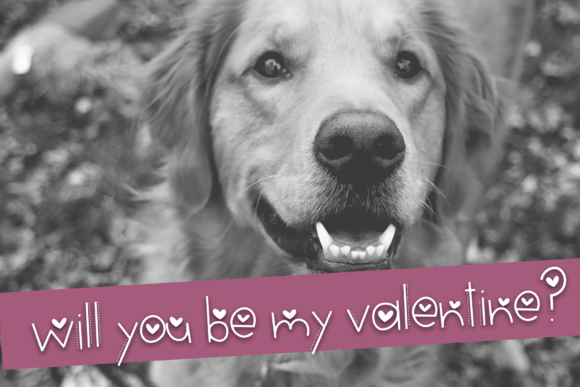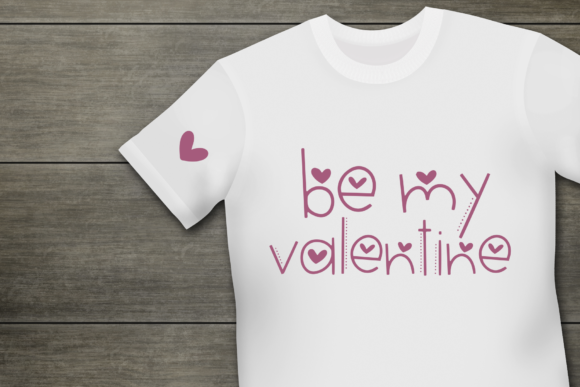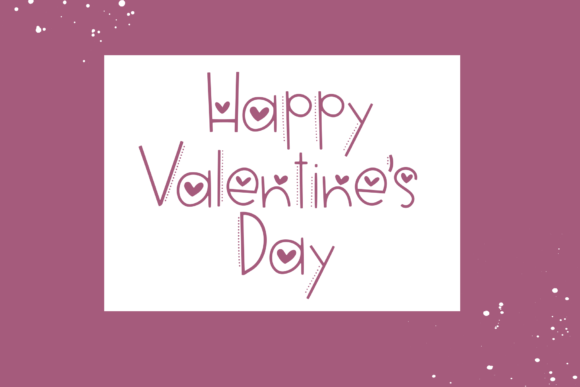
Introduction to Hi Valentine Font
Hi Valentine is a cute display font perfect for all of your Valentine’s Day projects.
It will add a romantic touch to any crafting project .